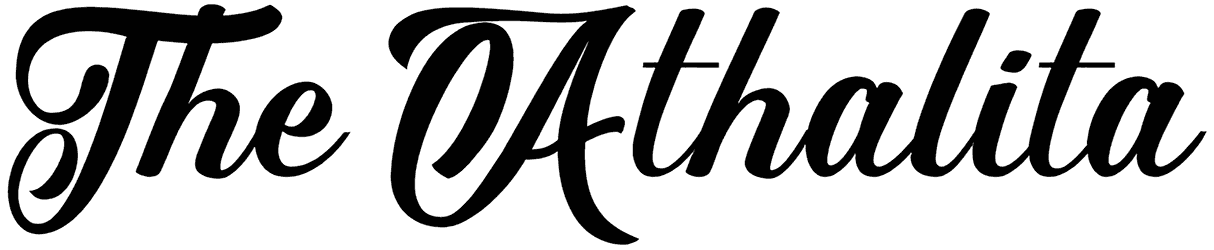
The Athalita Font
Herein, we come up with a striking artistic old-school font to crack, giving it a try to evoke any secretive vibe directly from the RB budget while including the outstanding pure feminine spirit.
The vibrant and true lettering of The Athalita can add a huge deal of reputation to your covers, packaging, titling, branding, or others. Desire to stock up on the likes of it? See around RB; you’ll find plenty!